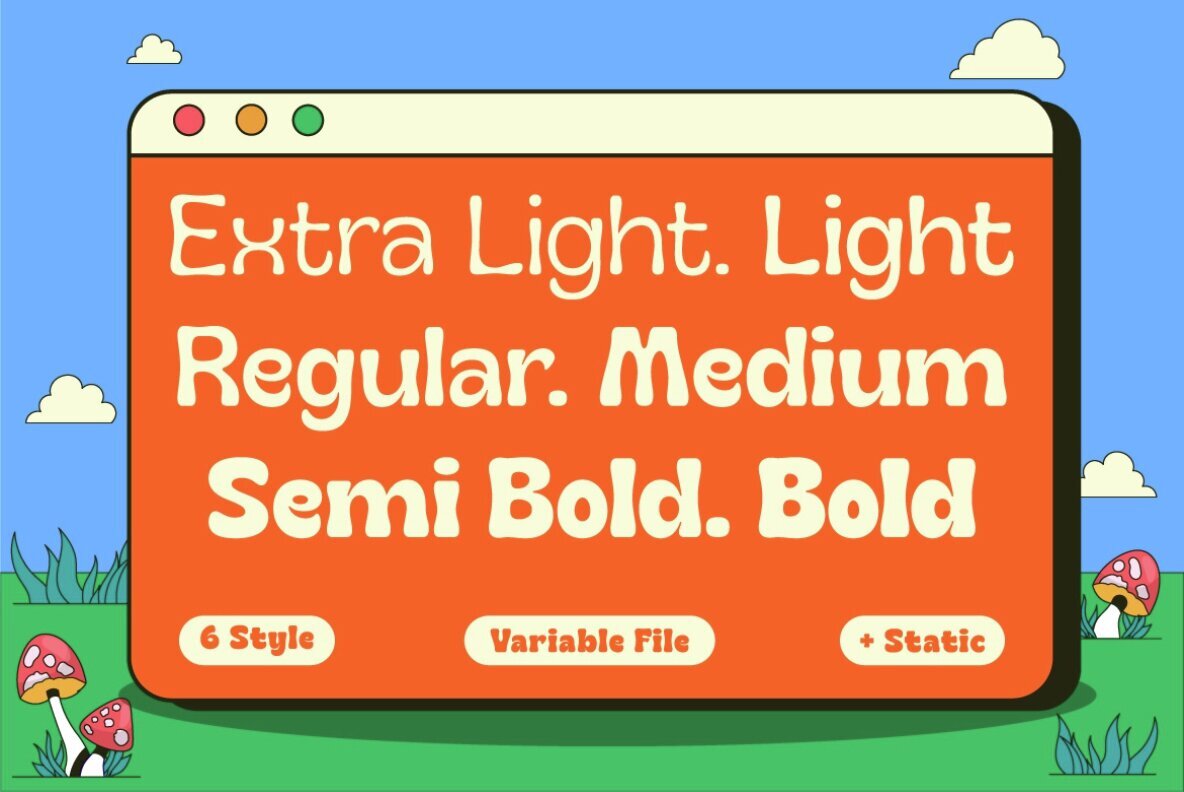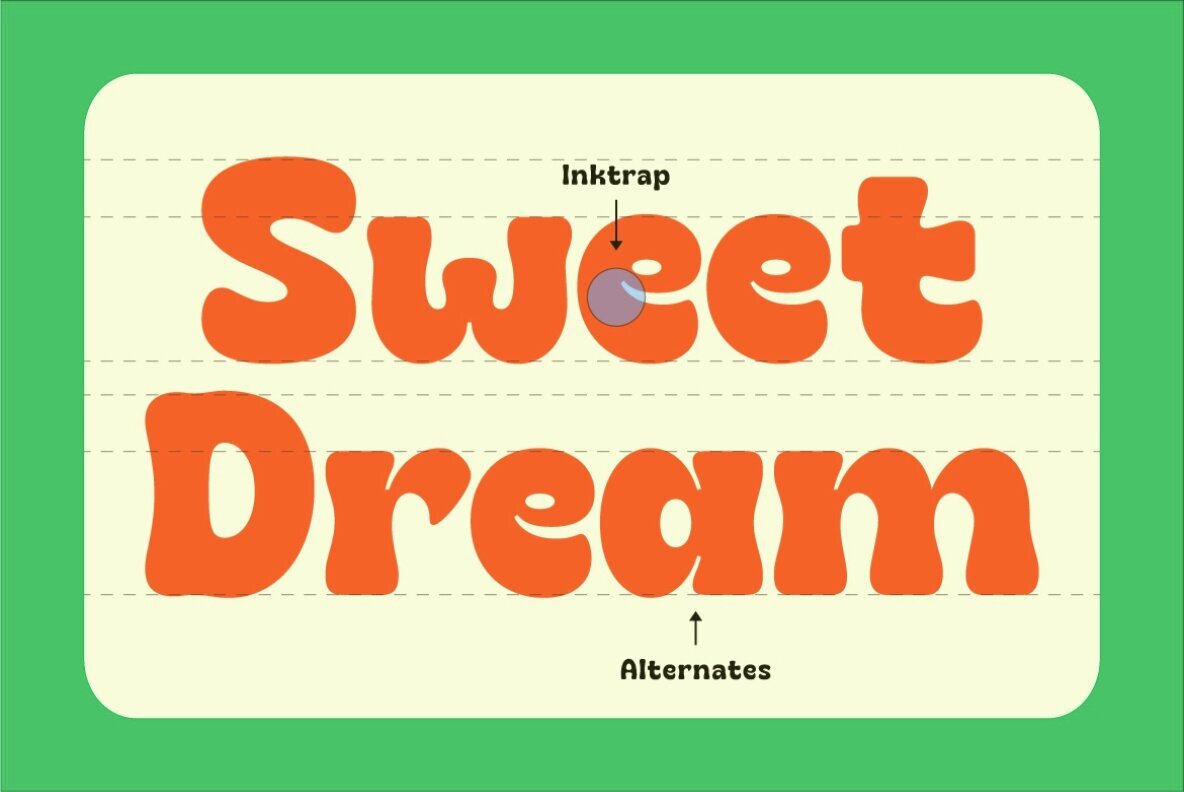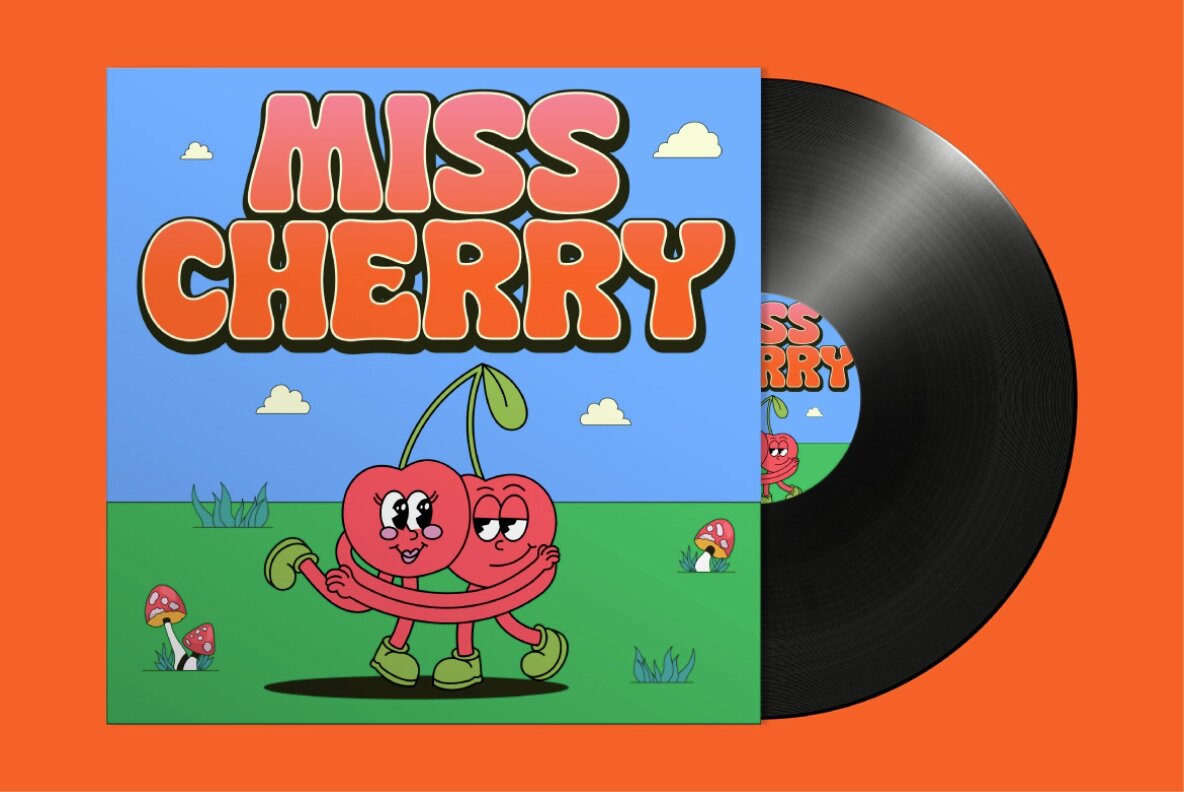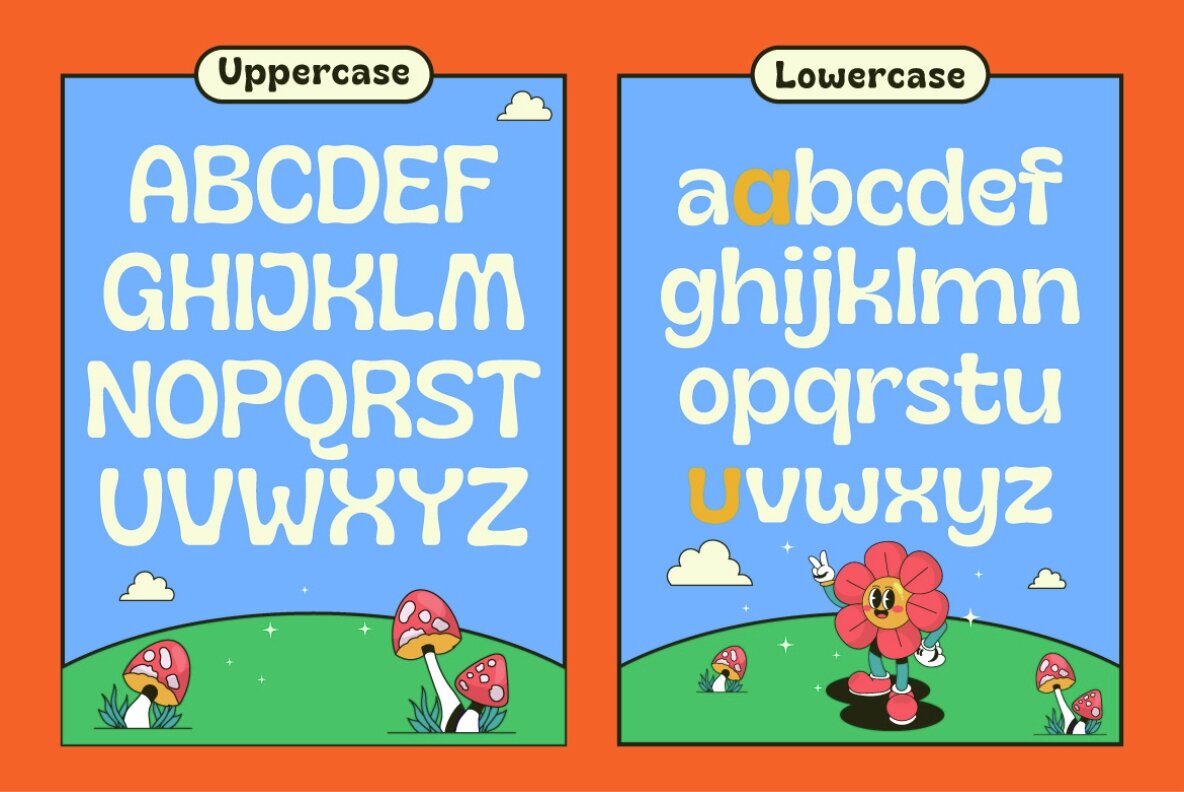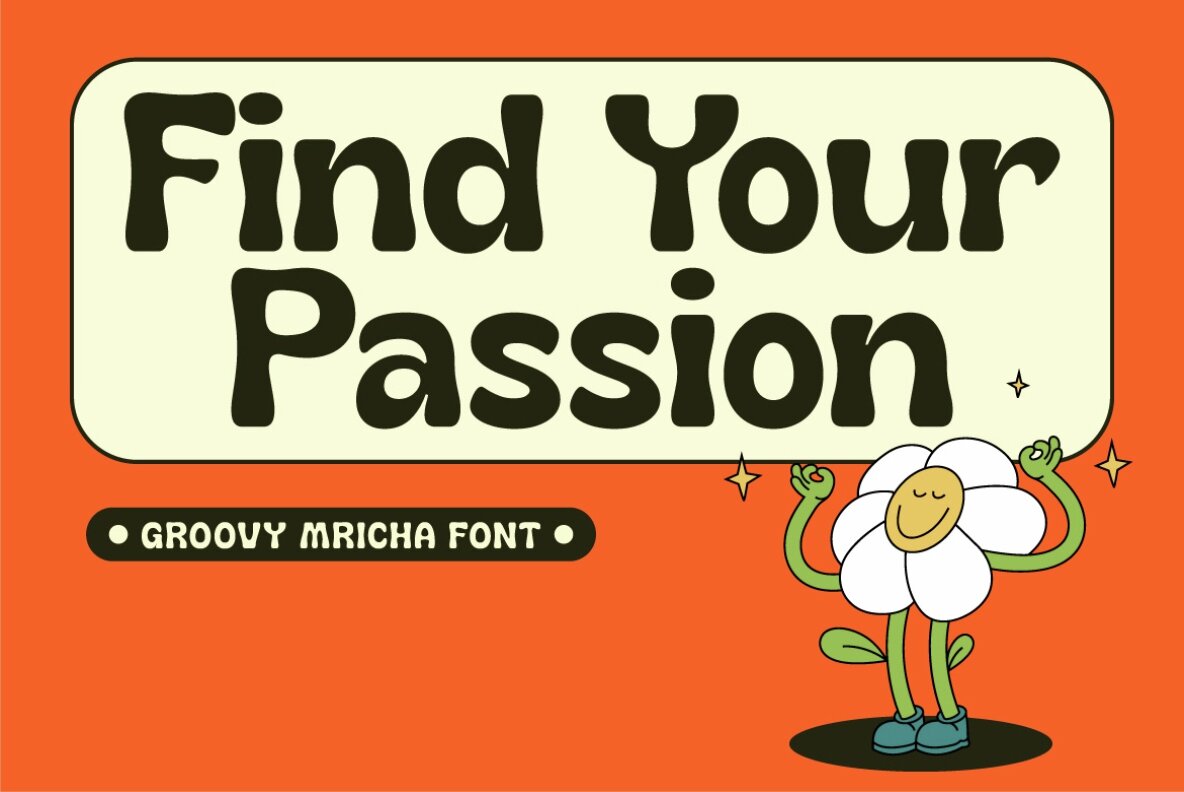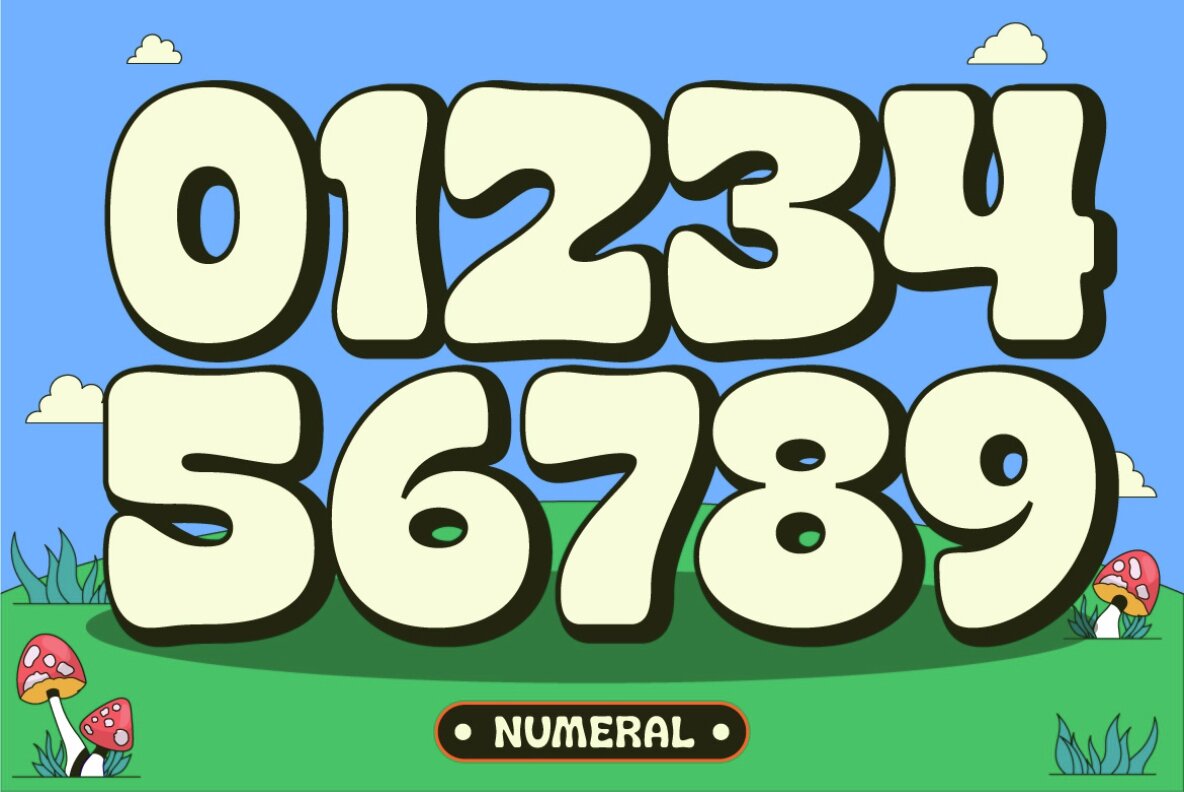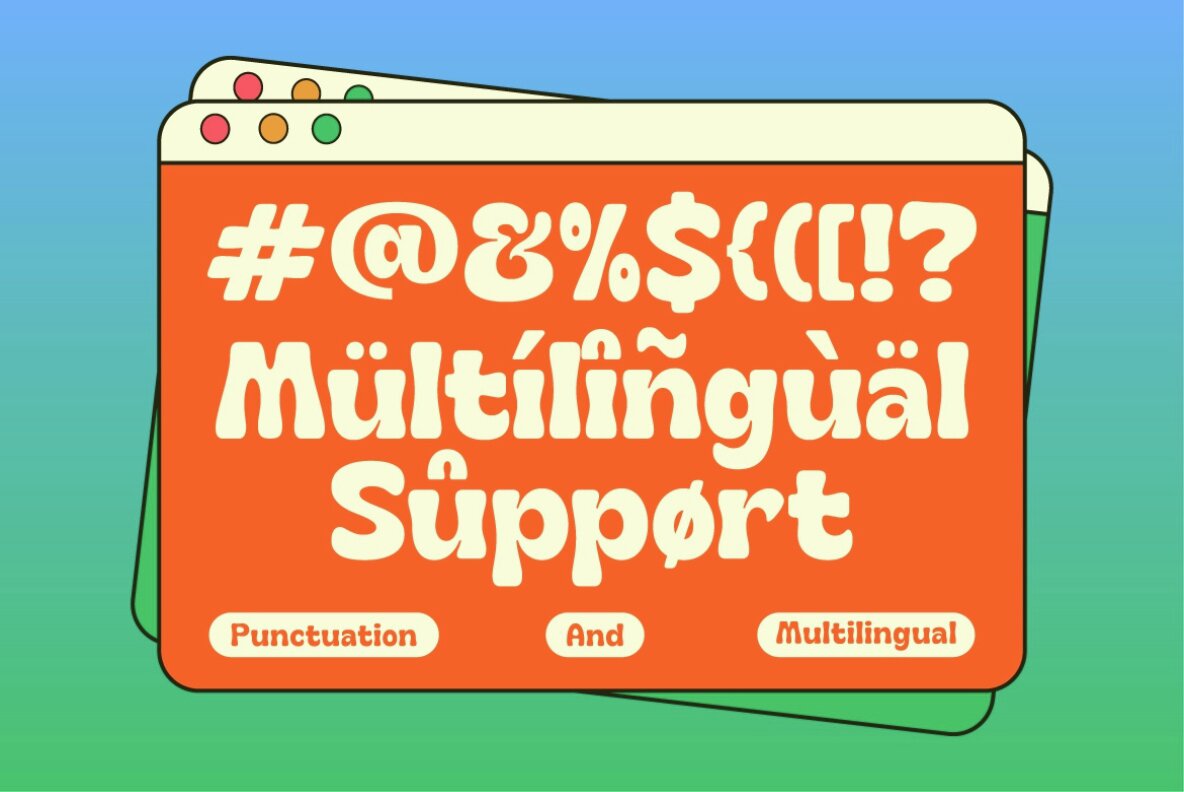
Groovy Mricha Font
Groovy Mricha is a distinctive variable font offered in six weights, from Extra Light to Bold. Inspired by the retro aesthetics of 90s cartoons and comics, it brings a contemporary flair to any project. Featuring unique ink traps, this font stands out with its charming and appealing design elements.
Ideal for both vintage and modern design projects, Groovy Mricha is perfect for creating funky logos, unique branding, and captivating headlines. Its versatility in adapting to various weights and styles allows seamless integration with graphic elements, enhancing creativity and memorability.
This font package includes a full set of uppercase and lowercase letters, numerals, punctuation, and multilingual support, providing a comprehensive toolkit for diverse design needs.